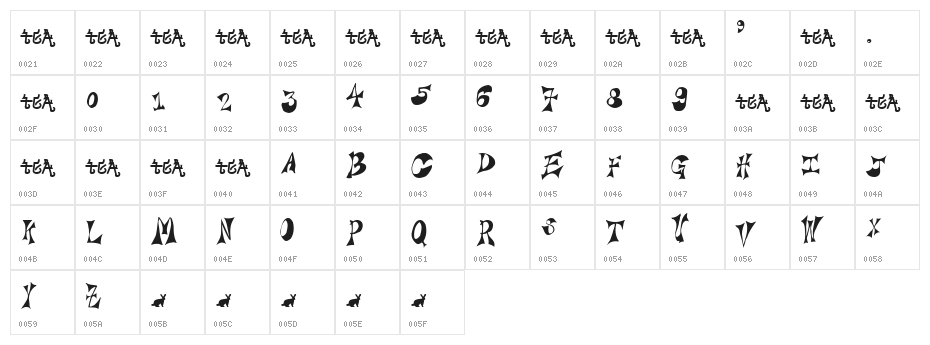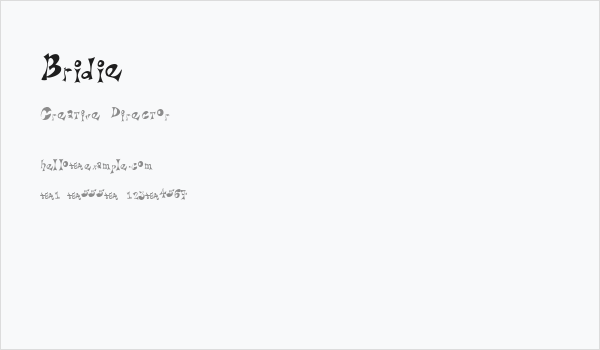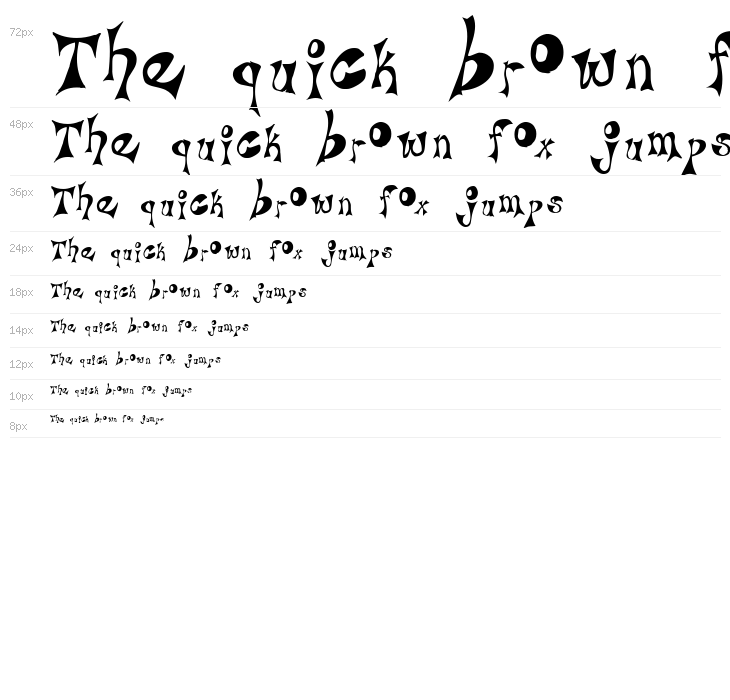
Bridie Font
Bridie Description
This font features a highly decorative and artistic style, characterized by its bold, exaggerated serifs and unique, angular shapes. Each letterform is distinct, with a playful yet gothic flair, making it stand out in any design. The uppercase letters are particularly striking, with sharp edges and varying stroke widths that create a dynamic visual impact. The lowercase letters maintain the same whimsical style, ensuring consistency throughout the typeface. Numbers and special characters follow suit, adding to the font's versatility. This font's intricate design makes it ideal for projects that require a bold and creative touch.
| Proposed Projects | Ideal for posters, album covers, branding, and any creative projects that require a standout typeface. |